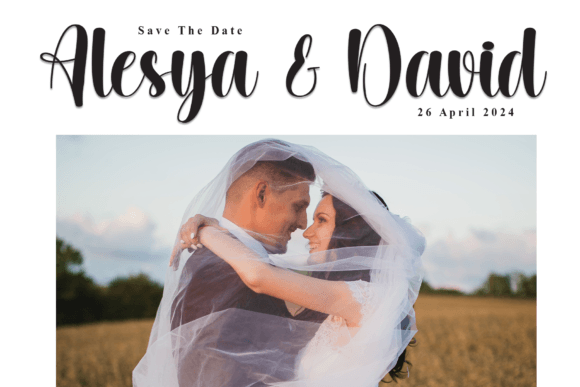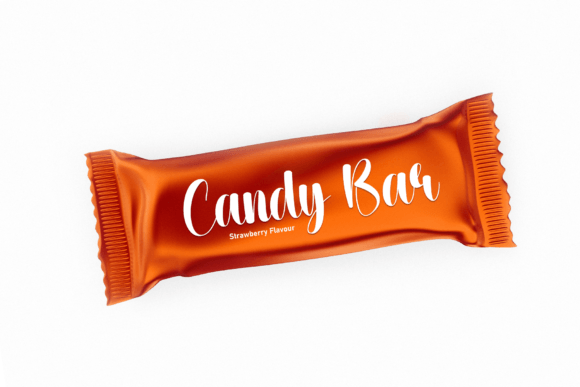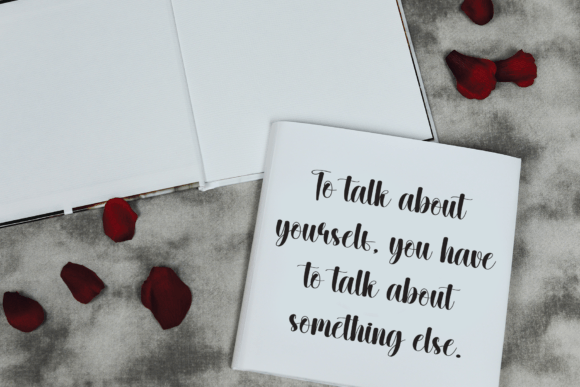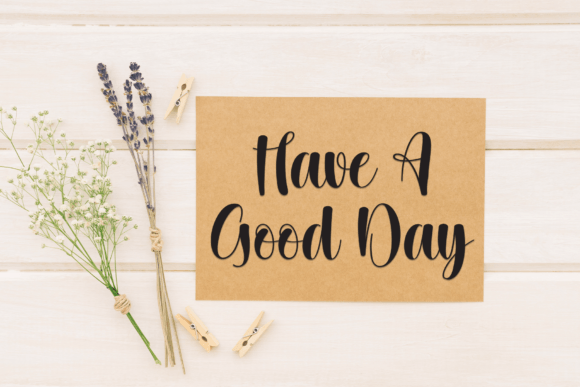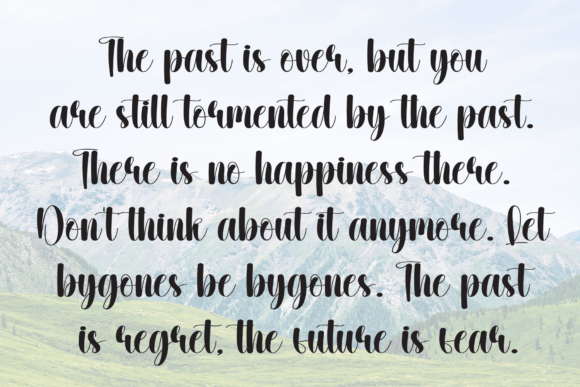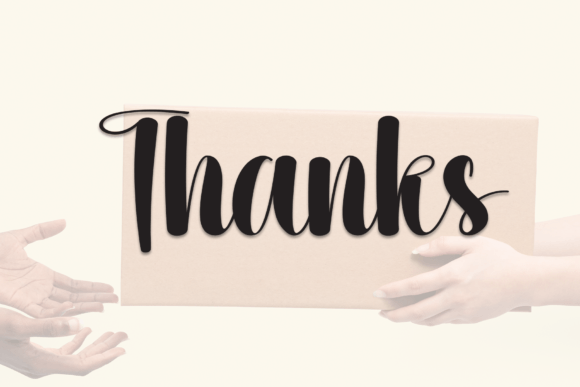
Introducing Charity Font: Elevate Your Designs with Elegance and Purpose
In the world of digital design, fonts play a crucial role in conveying emotions, setting tones, and creating lasting impressions. For designers, crafters, and anyone looking to add a touch of elegance and personality to their projects, the Charity Font emerges as a game-changer. This stylish and incredibly elegant script font is not just a typographical choice; it’s an expression of sophistication and warmth, perfect for a variety of design needs.
The Versatility of Charity Font
What sets Charity Font apart is its versatility. Whether you’re working on wedding invitations, thank you cards, quotes, greeting cards, logos, or business cards, this font adds a handwritten touch that is both personal and captivating. Its elegant script style breathes life into any design, making it stand out in a sea of digital content.
Why Choose Charity Font?
There are several reasons why designers and crafters are gravitating towards Charity Font:
- Elegance: The font exudes a level of sophistication that is hard to match. Its flowing lines and beautiful curves make any text look refined and classy.
- Readability: Despite its elegant nature, Charity Font remains highly readable, making it perfect for both short phrases and longer texts.
- Versatility: As mentioned, its use is not limited to one type of project. From formal to casual designs, Charity Font adapts seamlessly.
- Emotional Connection: The handwritten touch it provides helps in creating an emotional connection with the reader, making designs more impactful.
Applications of Charity Font
The applications of Charity Font are vast and varied. Here are a few ideas to get you started:
- Wedding and Event Planning: Use it for wedding invitations, save the dates, and event programs to set a tone of elegance and joy.
- Stationery and Greeting Cards: Add a personal touch to thank you cards, greeting cards, and letters with this beautiful script font.
- Branding and Marketing: For businesses looking to convey a sense of luxury, sophistication, or warmth, Charity Font can be a valuable asset in branding materials.
- Quotes and Typography Art: The elegant nature of Charity Font makes it perfect for typography art, especially for quotes and phrases meant to inspire or provoke thought.
Tips for Using Charity Font Effectively
To make the most out of Charity Font, consider the following tips:
- Pair it Wisely: Combine Charity Font with complementary fonts to enhance its beauty and ensure readability.
- Adjust Size and Color: Experiment with different sizes and colors to match the tone of your design and make the text pop.
- Use it Sparingly: While Charity Font is elegant, using it sparingly can make your design more impactful. Consider using it for headings or key messages.
Charity Font is more than just a typographical choice; it’s a way to infuse your designs with elegance, personality, and purpose. Whether you’re a professional designer or a crafter working on personal projects, this versatile and beautiful script font can elevate your work to new heights. With its wide range of applications and ease of use, Charity Font is set to become a favorite in the world of digital design.